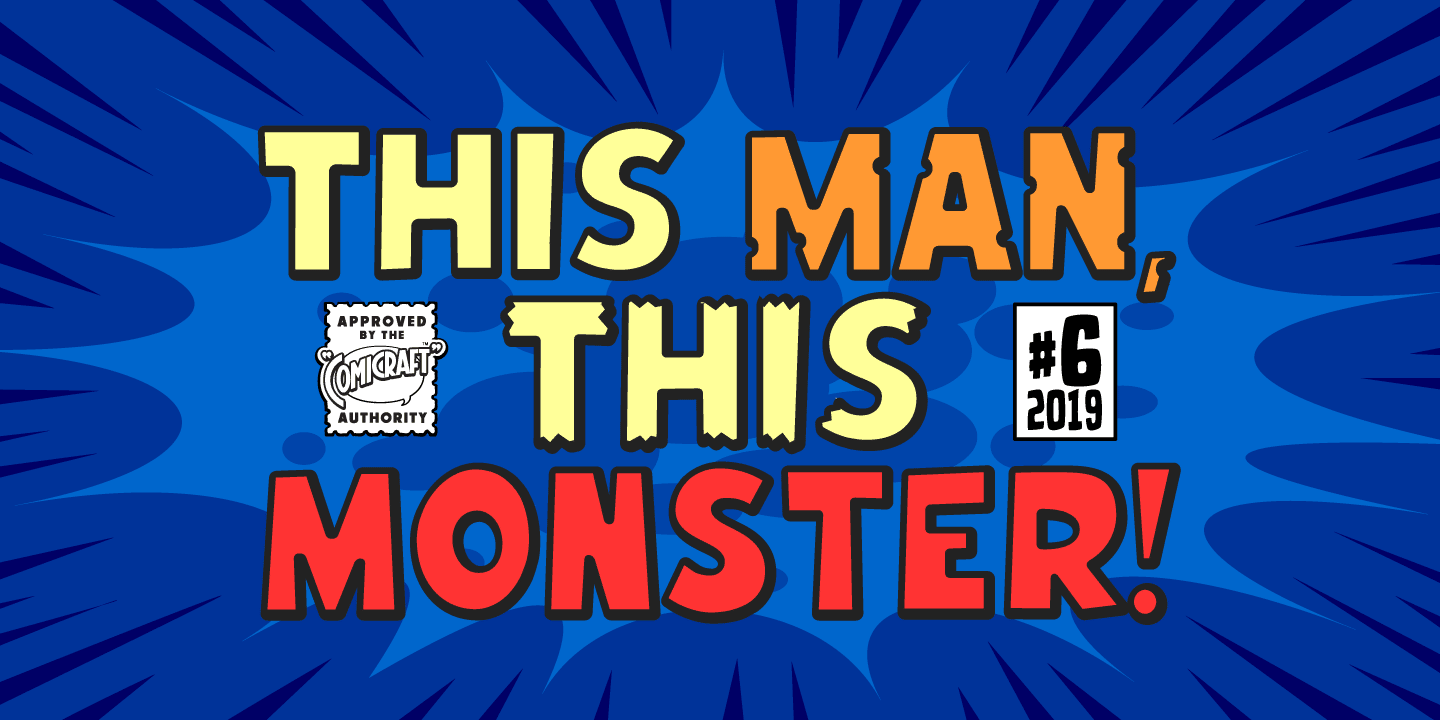
Perfect for comic book lettering, superhero movie posters, graphic novel covers, gaming brand identities, action figure packaging, animated series titles, entertainment marketing campaigns, and pop culture merchandise design.
This font is exciting because it perfectly captures the dramatic duality of heroic storytelling with bold letterforms that embody both human vulnerability and monstrous power in compelling visual narratives.
Experience the epic drama of storytelling with This Man This Monster Font Free Download, a powerful typeface that embodies the timeless struggle between humanity and monstrosity found in classic comic book narratives. This exceptional font brings the dramatic intensity of superhero comics and graphic storytelling to contemporary design projects, making it perfect for brands seeking to tap into the enduring appeal of heroic adventures and character-driven narratives.
This Man This Monster Font features dramatically crafted letterforms with bold structural elements that immediately evoke the golden age of comic book design and superhero storytelling. The carefully designed characters combine classic comic book aesthetics with modern readability, ensuring maximum visual impact while maintaining the authentic character that resonates with comic book enthusiasts and pop culture audiences worldwide.
The font's remarkable storytelling power makes it invaluable for entertainment companies and creative projects where dramatic character development and narrative tension are essential for audience engagement and brand recognition. Whether you're designing promotional materials for superhero entertainment properties, creating brand identities for gaming companies that celebrate heroic themes, or developing marketing campaigns for action-oriented products, This Man This Monster Font delivers the authentic comic book aesthetic that builds instant emotional connections.
Entertainment professionals and pop culture brands worldwide rely on the This Man This Monster Font Free Download for projects requiring dramatic storytelling appeal and superhero credibility. The font works exceptionally well for comic book publishers celebrating classic narratives, toy companies marketing action figures, streaming services promoting superhero content, and any business seeking to establish connections with audiences who appreciate heroic storytelling and character-driven entertainment.
The comprehensive This Man This Monster Font family includes variations that maintain the signature comic book aesthetic while providing design flexibility for diverse entertainment applications. Each character demonstrates exceptional attention to comic book design principles, ensuring the dramatic character remains powerful and visually compelling across all sizes, from large-scale movie posters to detailed merchandise packaging and digital applications.
This typeface excels in applications where creating specific emotional responses and storytelling atmosphere is crucial for brand success and audience engagement. The dramatic letterforms create immediate narrative tension that eliminates the need for additional design elements, allowing the typography itself to communicate heroic themes, character conflict, and the eternal struggle between good and evil.
This Man This Monster Font's technical excellence ensures optimal performance across both digital and print applications common in entertainment and pop culture industries. The distinctive letterforms maintain their dramatic impact when reproduced on various materials, from comic book pages to large-scale promotional displays that must capture attention in competitive entertainment markets.